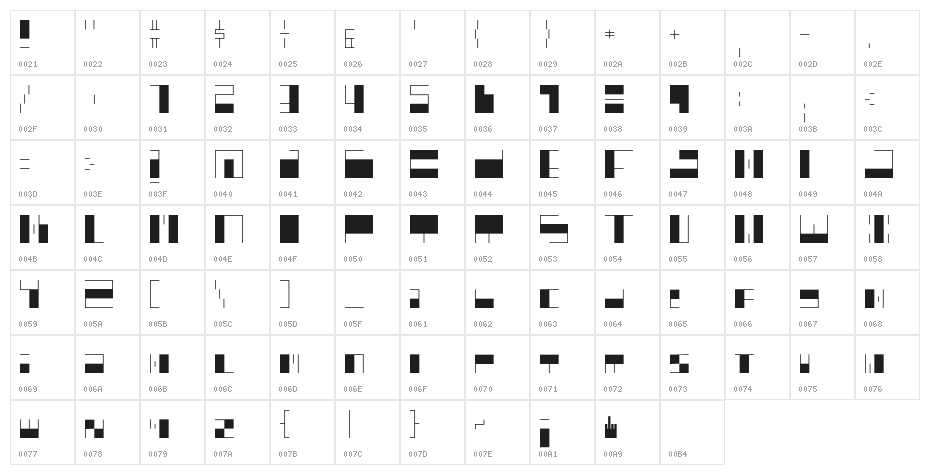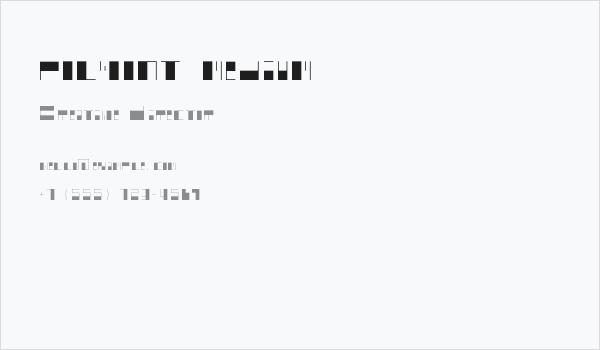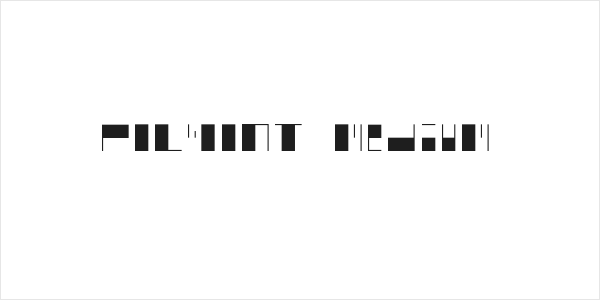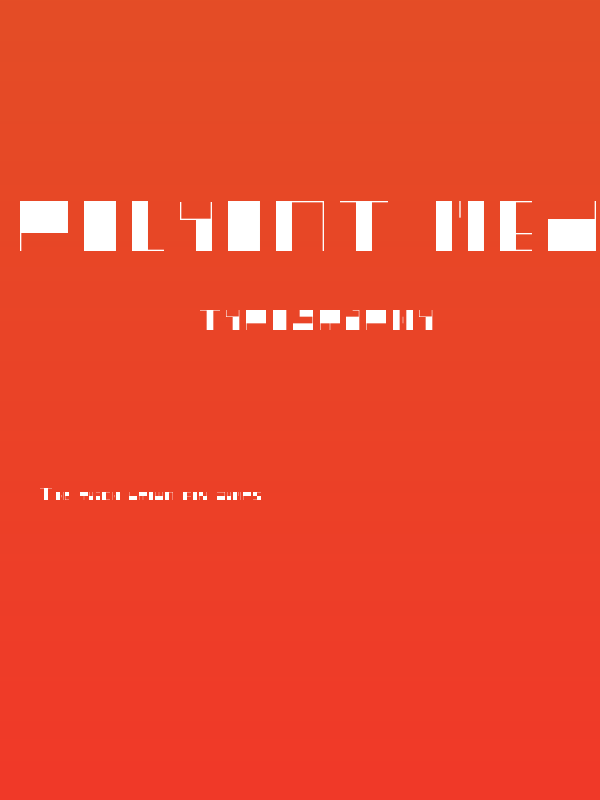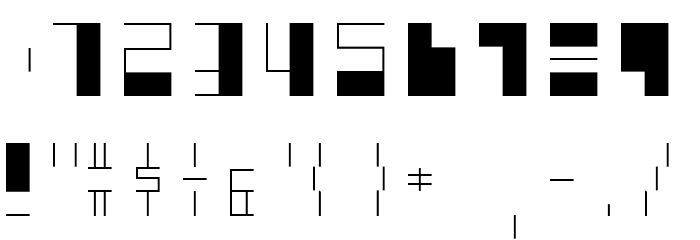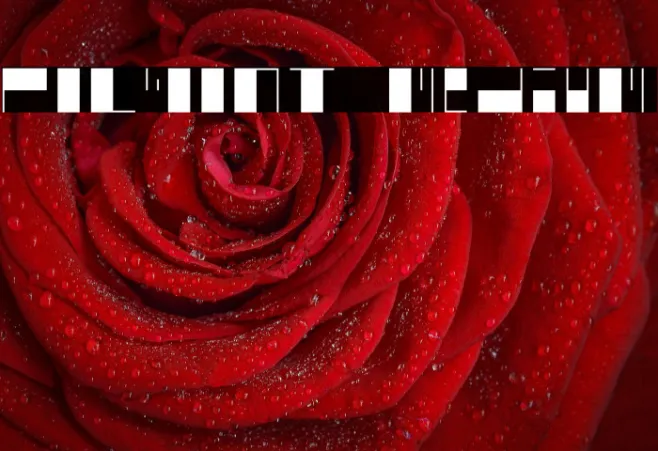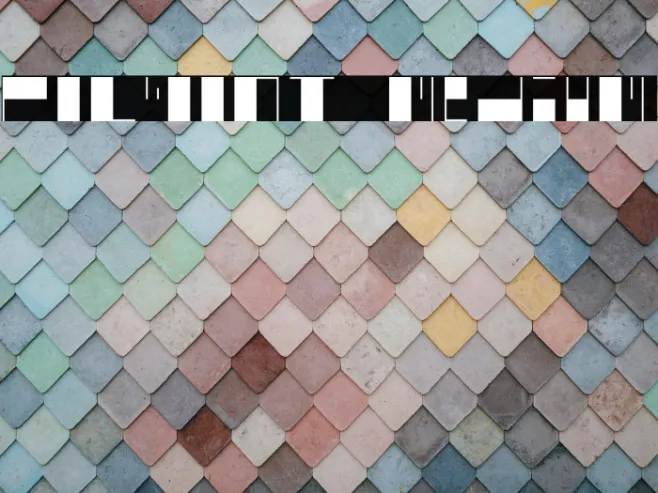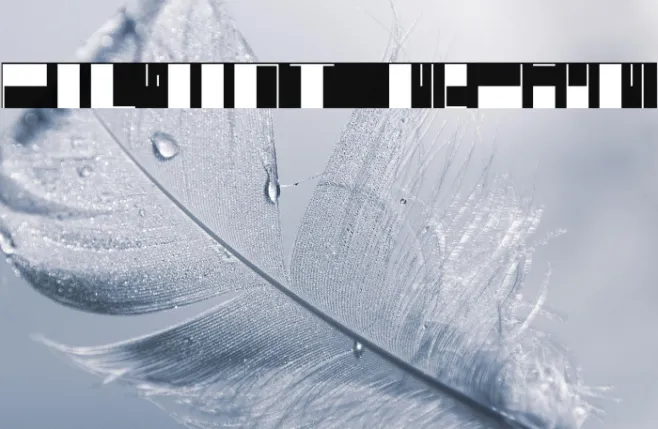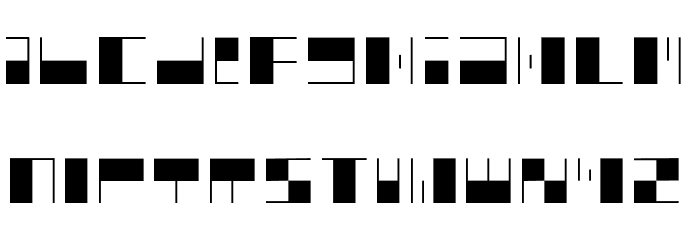
polyont medium Font
polyont medium Description
This font features a futuristic and geometric design, characterized by its bold, block-like shapes and minimalistic style. The letters are constructed with straight lines and sharp angles, giving it a digital and modern appearance. The uppercase and lowercase letters share a consistent height, contributing to a uniform look. The numbers and special characters maintain the same geometric style, ensuring a cohesive visual identity across all characters. This font's unique structure makes it stand out, ideal for projects that require a modern and tech-savvy aesthetic.
| Proposed Projects | Ideal for tech branding, digital media, video game interfaces, and sci-fi themed projects. |